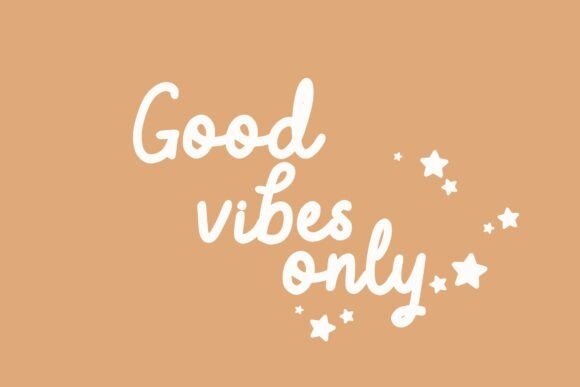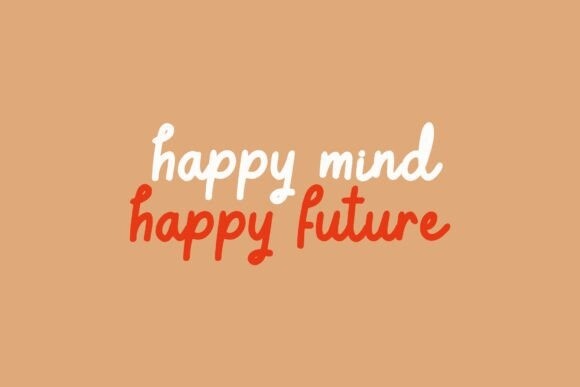
Jack Quaker Font
Jack Quaker Font, a playful handwriting font designed with fun, unique characters that bring a lively touch to any project. Whether you’re looking to create eye-catching product graphics or elevate your designs, Jack Quaker adds personality and charm to your visuals.